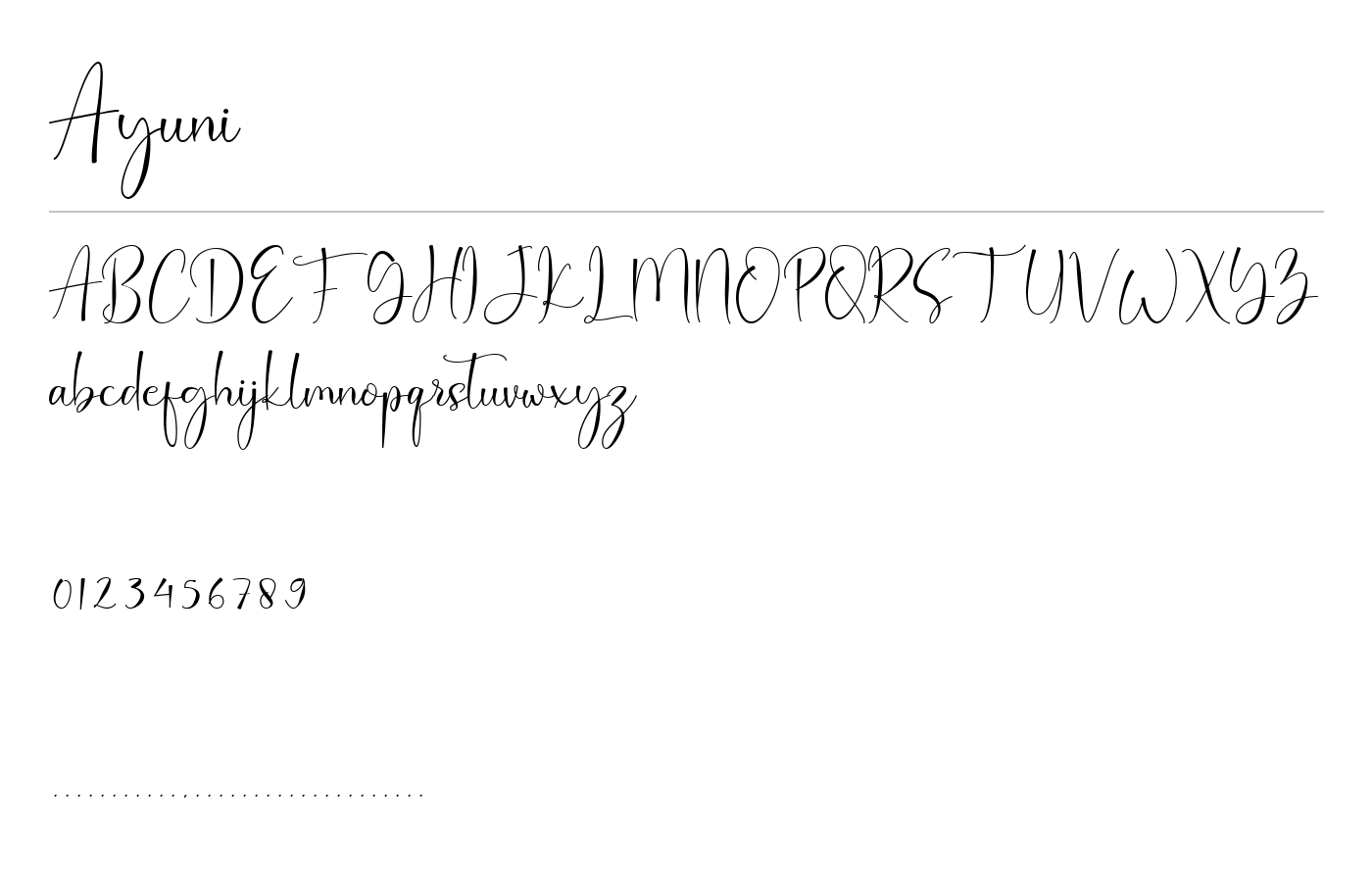
Ayuni is a delicate, handwritten script font characterized by its thin, flowing strokes and elegant, airy letterforms. Its refined style and playful yet sophisticated vibe make it perfect for personal branding, invitations, and feminine or creative projects looking to convey a sense of grace and individuality. This font works beautifully in headlines and decorative text where a touch of charm and uniqueness is desired.
Ayuni Font
About Ayuni Font
| Font family | Ayuni Font |
| Designer | Nabila Graphic Team |